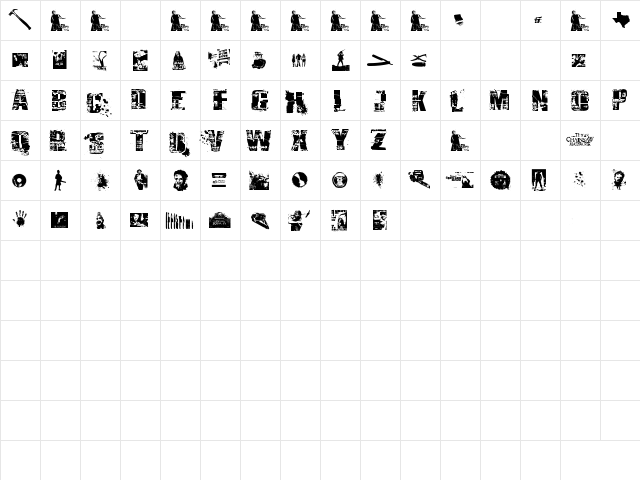
Survival Horror Regular
Design Context for Survival Horror Typeface
Survival Horror carries an unsettling edge — its distorted letterforms are built to unsettle, perfectly suited to horror, Halloween, and dark creative work.
Perfect for anything that needs to unsettle — game titles, horror branding, and macabre invitations.
Font Pairing: Pair with a clean neutral sans-serif for body copy to let Survival Horror's character lead without overwhelming the composition.
Pro Tip: Use Survival Horror at larger display sizes for maximum impact. Consider generous tracking to let the disturbing character of each letterform breathe.